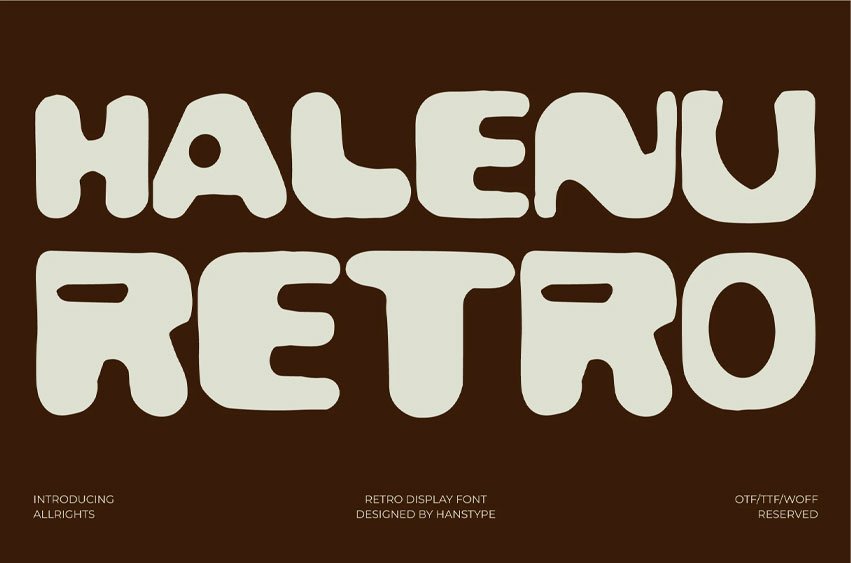
Halenu Font
Halenu Font is a hand-drawn, retro-inspired font that combines bold, chunky letterforms with a vintage vibe.
Featuring strong, geometric shapes and slightly uneven strokes, Halenu evokes the essence of mid-century design while maintaining a unique, playful character.